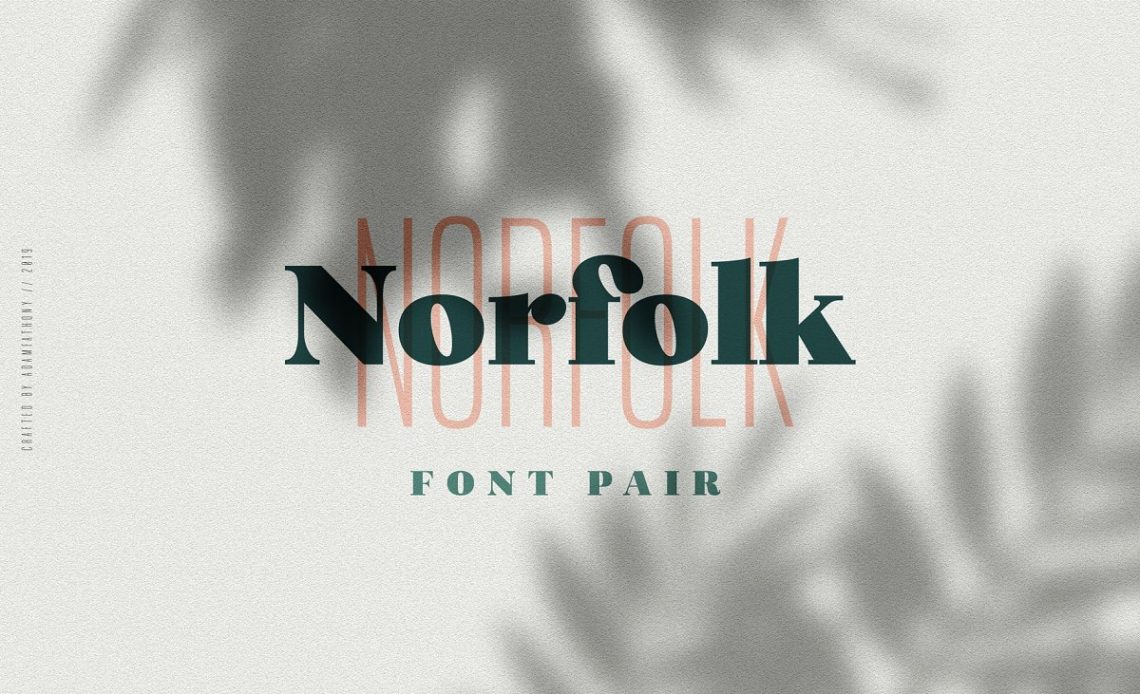
Looking for the best font for bold t-shirts? Look no further than Norfolk, the stunning new combination of Bold Serif fonts with Narrow Sans Serif fonts created by the talented Adam Fathoni Haris.
With Norfolk, you'll get the perfect balance of elegance and simplicity that is both usable and versatile. This carefully crafted font family is designed to give your t-shirts that extra pop of style and personality that they need to stand out.
But Norfolk is more than just a pretty face. With its clean lines and carefully crafted letterforms, it's also incredibly readable and easy on the eyes. Plus, it's available in a wide variety of languages, making it the perfect choice for a global audience.